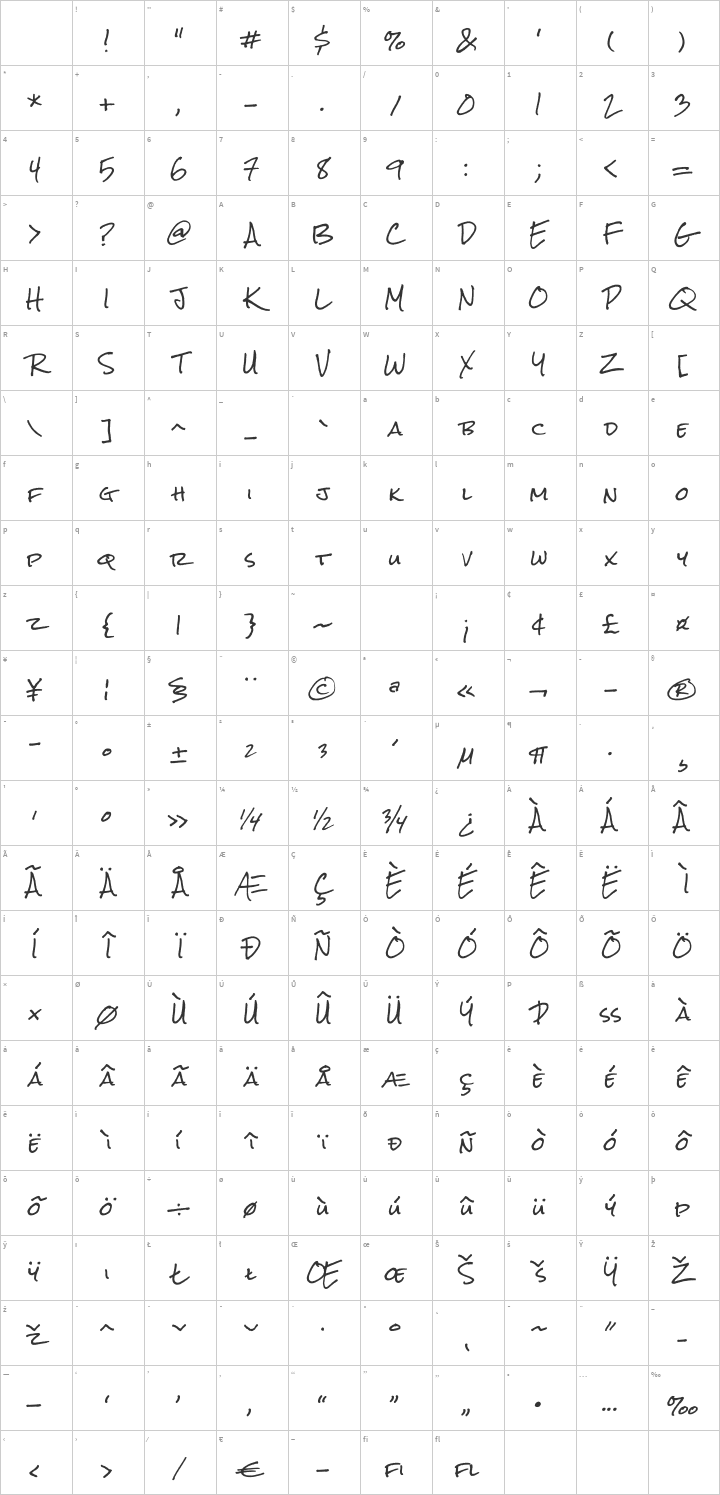
Rock Salt Font Generator . Explore rock salt pro designed by squid at adobe fonts. Select, preview, and generate css and html for your font family. The rock salt font has been downloaded 55,208 times. Download free rock salt font, view its. Download and install the rock salt free font. A handmade typeface with 1 style, available from adobe fonts for sync and web. Rock salt is a handwritten script font designed by the american type designer james grieshaber. safe css font stacks and web fonts. Download and install the rock salt font by sideshow. Use the text generator tool below to preview rock salt font, and create appealing text graphics with different colors and hundreds of text effects. Rock salt was created to emulate the look and.
Download and install the rock salt free font. The rock salt font has been downloaded 55,208 times. Rock salt is a handwritten script font designed by the american type designer james grieshaber. safe css font stacks and web fonts. Download and install the rock salt font by sideshow. Download free rock salt font, view its. Rock salt was created to emulate the look and. Explore rock salt pro designed by squid at adobe fonts. Select, preview, and generate css and html for your font family. Use the text generator tool below to preview rock salt font, and create appealing text graphics with different colors and hundreds of text effects.
Rock Salt Font Generator Rock salt was created to emulate the look and. Rock salt is a handwritten script font designed by the american type designer james grieshaber. Download and install the rock salt font by sideshow. Explore rock salt pro designed by squid at adobe fonts. Select, preview, and generate css and html for your font family. The rock salt font has been downloaded 55,208 times. safe css font stacks and web fonts. Download free rock salt font, view its. Download and install the rock salt free font. Use the text generator tool below to preview rock salt font, and create appealing text graphics with different colors and hundreds of text effects. Rock salt was created to emulate the look and. A handmade typeface with 1 style, available from adobe fonts for sync and web.
Rock Salt Fonts Shmonts Rock Salt Font Generator Rock salt was created to emulate the look and. The rock salt font has been downloaded 55,208 times. Download and install the rock salt font by sideshow. Explore rock salt pro designed by squid at adobe fonts. A handmade typeface with 1 style, available from adobe fonts for sync and web. safe css font stacks and web fonts. Rock. Rock Salt Font Generator.
Rock Salt Font · 1001 Fonts Rock Salt Font Generator Rock salt was created to emulate the look and. Explore rock salt pro designed by squid at adobe fonts. safe css font stacks and web fonts. Use the text generator tool below to preview rock salt font, and create appealing text graphics with different colors and hundreds of text effects. A handmade typeface with 1 style, available from adobe. Rock Salt Font Generator.
Rock Salt Font · 1001 Fonts Rock Salt Font Generator Select, preview, and generate css and html for your font family. Use the text generator tool below to preview rock salt font, and create appealing text graphics with different colors and hundreds of text effects. Rock salt is a handwritten script font designed by the american type designer james grieshaber. Download and install the rock salt free font. A handmade. Rock Salt Font Generator.
Rock Salt Font FREE Download & Similar Fonts FontGet Rock Salt Font Generator A handmade typeface with 1 style, available from adobe fonts for sync and web. Rock salt is a handwritten script font designed by the american type designer james grieshaber. Download and install the rock salt free font. Download free rock salt font, view its. The rock salt font has been downloaded 55,208 times. Explore rock salt pro designed by squid. Rock Salt Font Generator.
Hand Lettered Font Rock Salt Etsy Rock Salt Font Generator Use the text generator tool below to preview rock salt font, and create appealing text graphics with different colors and hundreds of text effects. Download free rock salt font, view its. safe css font stacks and web fonts. A handmade typeface with 1 style, available from adobe fonts for sync and web. Download and install the rock salt free. Rock Salt Font Generator.
Rock Salt Font Free Download in 2020 Free fonts download, Free font Rock Salt Font Generator safe css font stacks and web fonts. Explore rock salt pro designed by squid at adobe fonts. Rock salt is a handwritten script font designed by the american type designer james grieshaber. Use the text generator tool below to preview rock salt font, and create appealing text graphics with different colors and hundreds of text effects. Download and install. Rock Salt Font Generator.